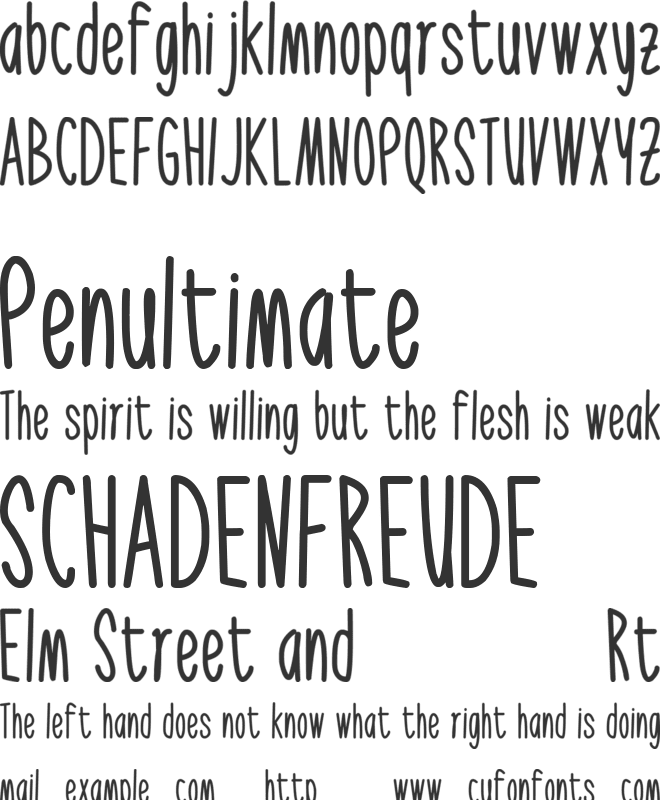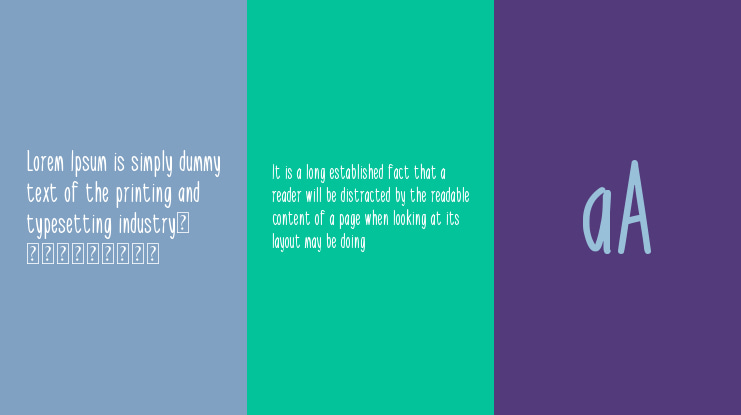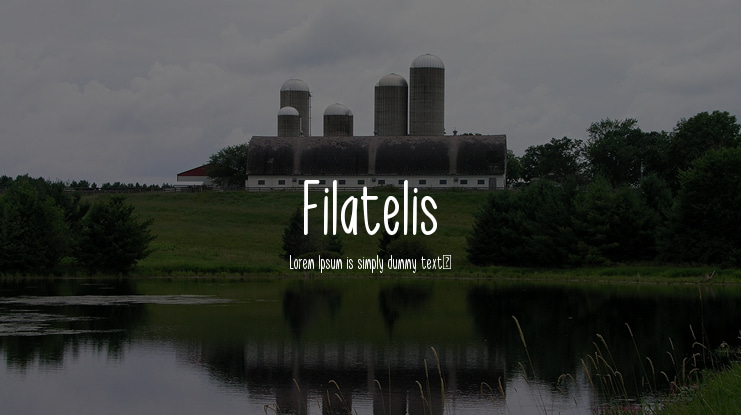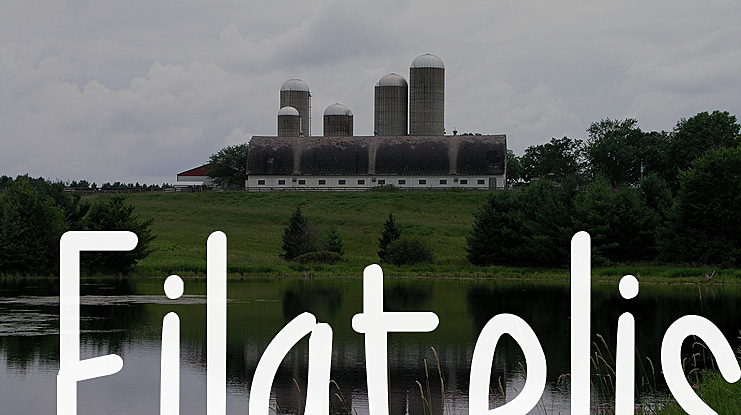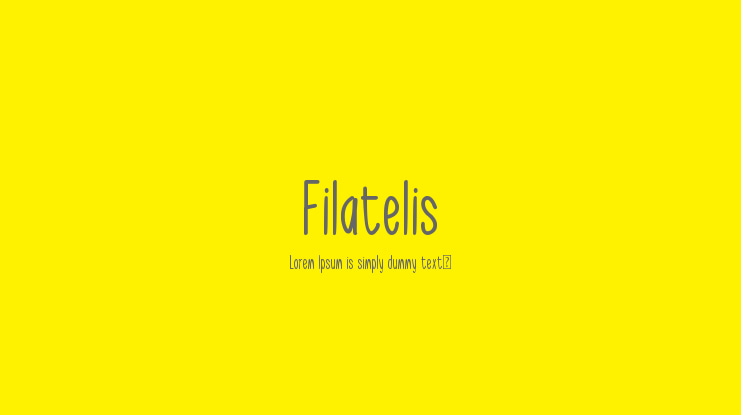
Filatelis Font
Filatelis is the type of font that I offer specifically to welcome summer, I am very happy to do it and now Filatelis is my newest product in my shop
Filatelis will be perfect for different projects such as logos & branding, invitation, stationery, wedding designs, social media posts, advertisements, product packaging, product designs, labels, photograpy, watermark, special events or anything.